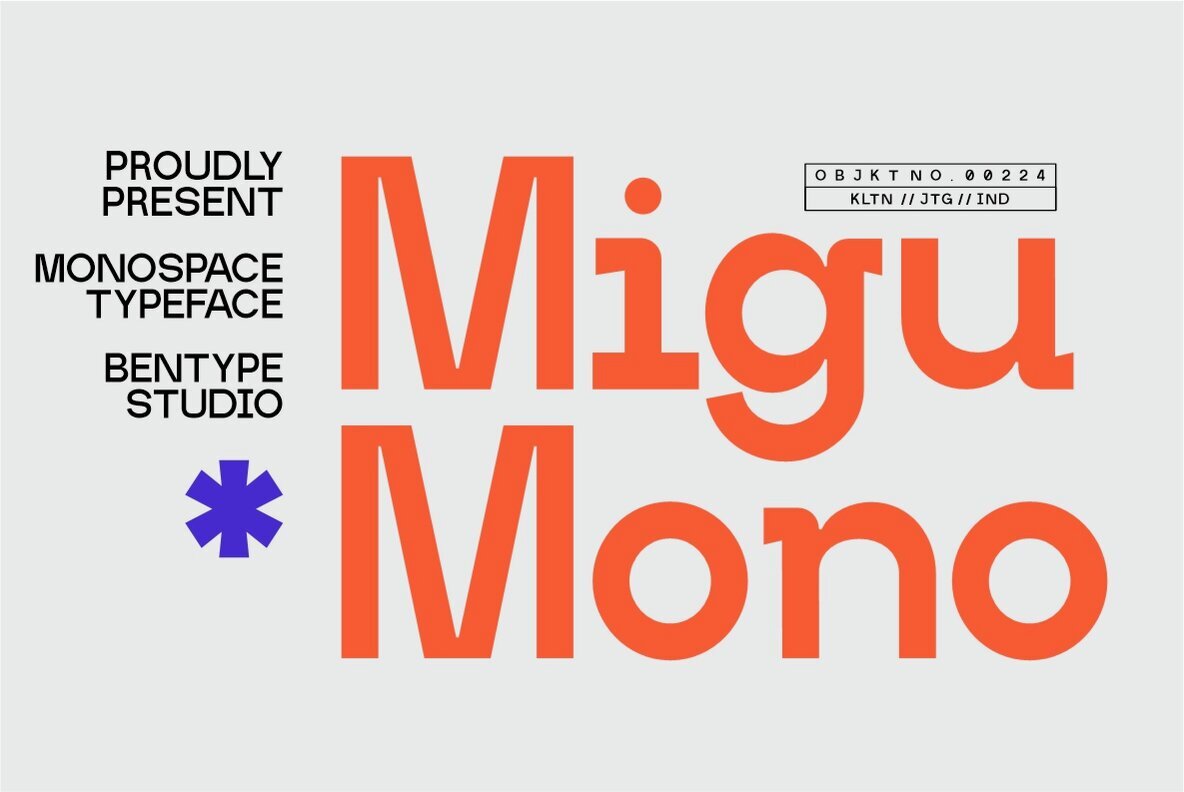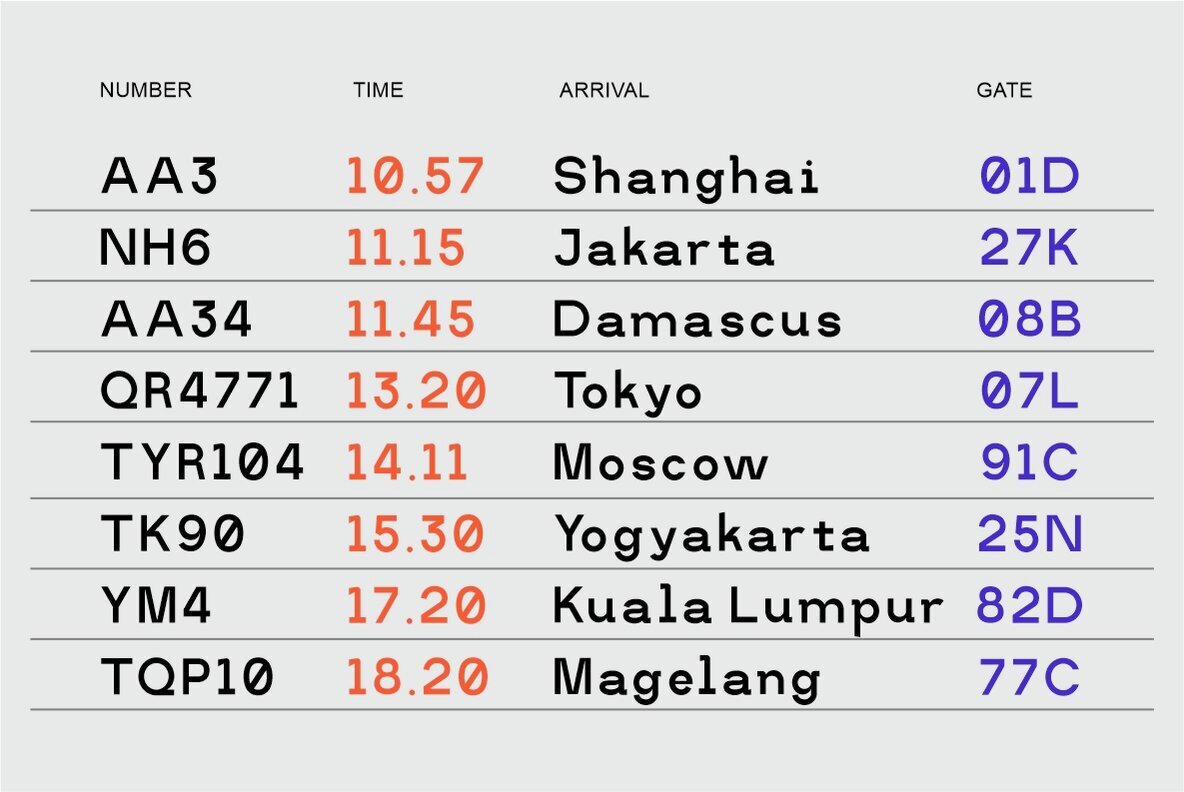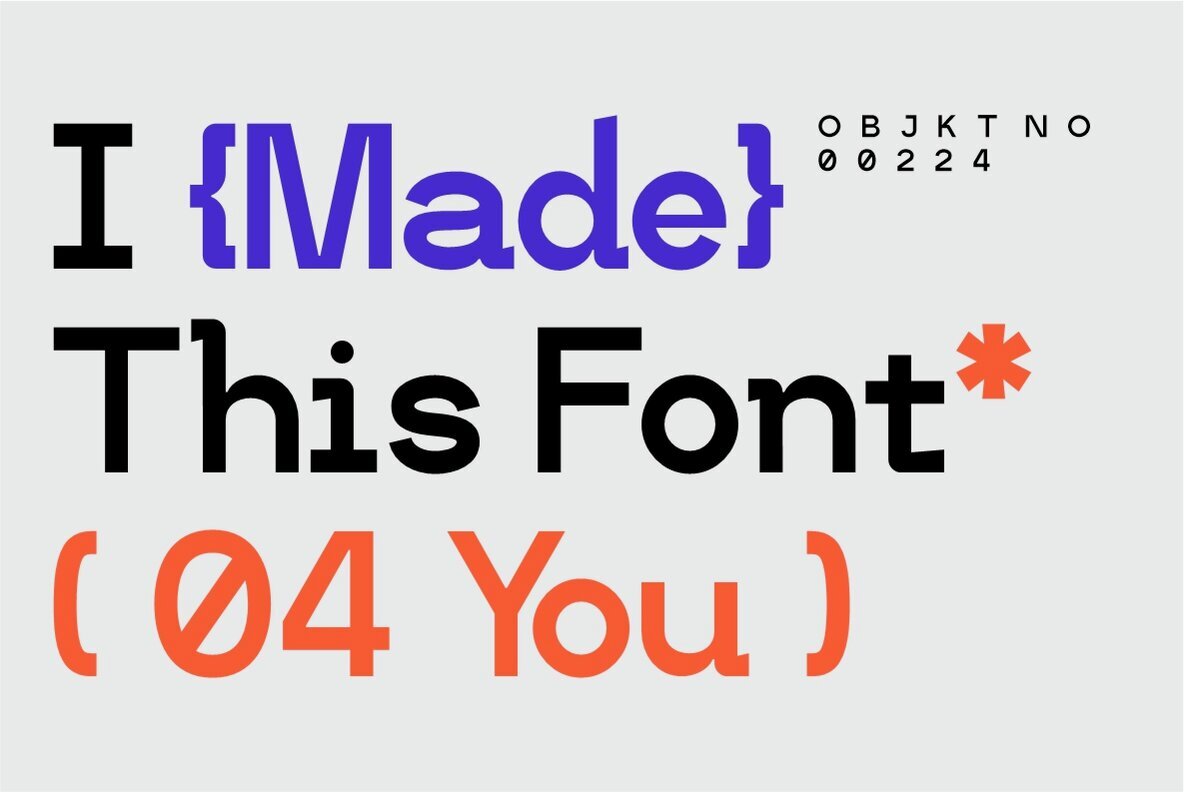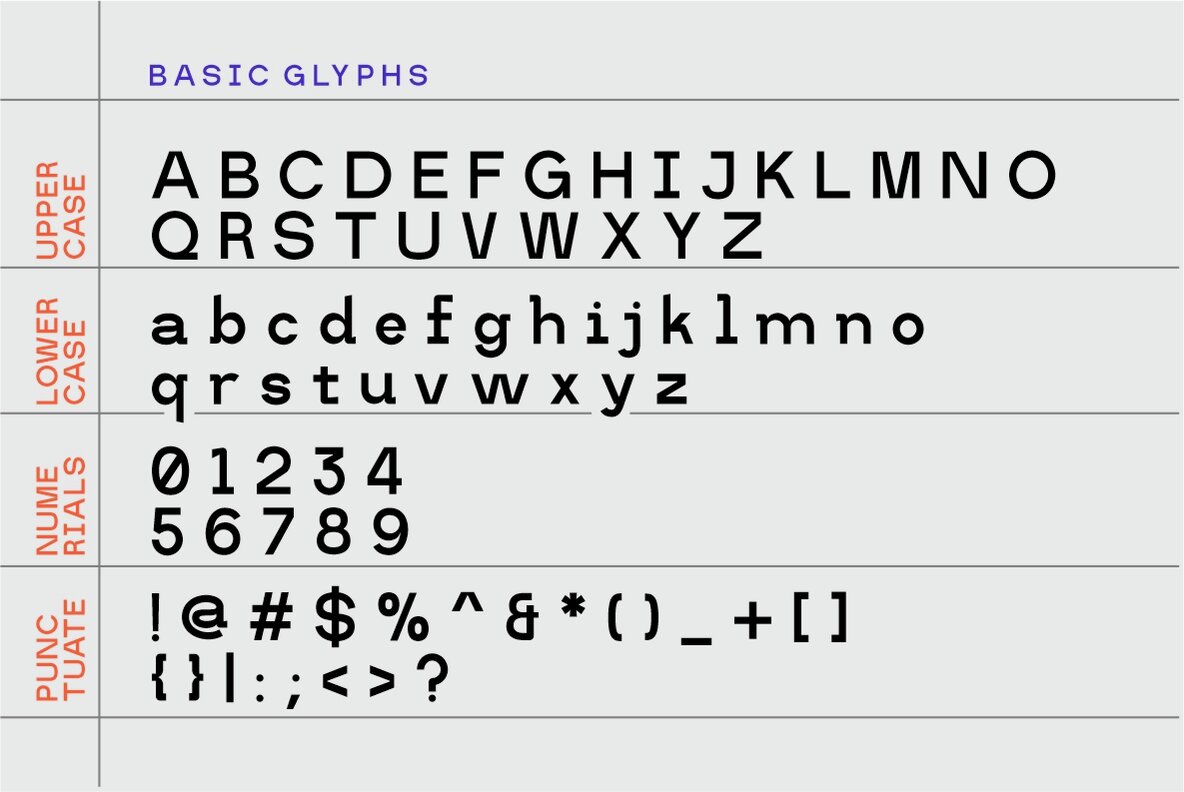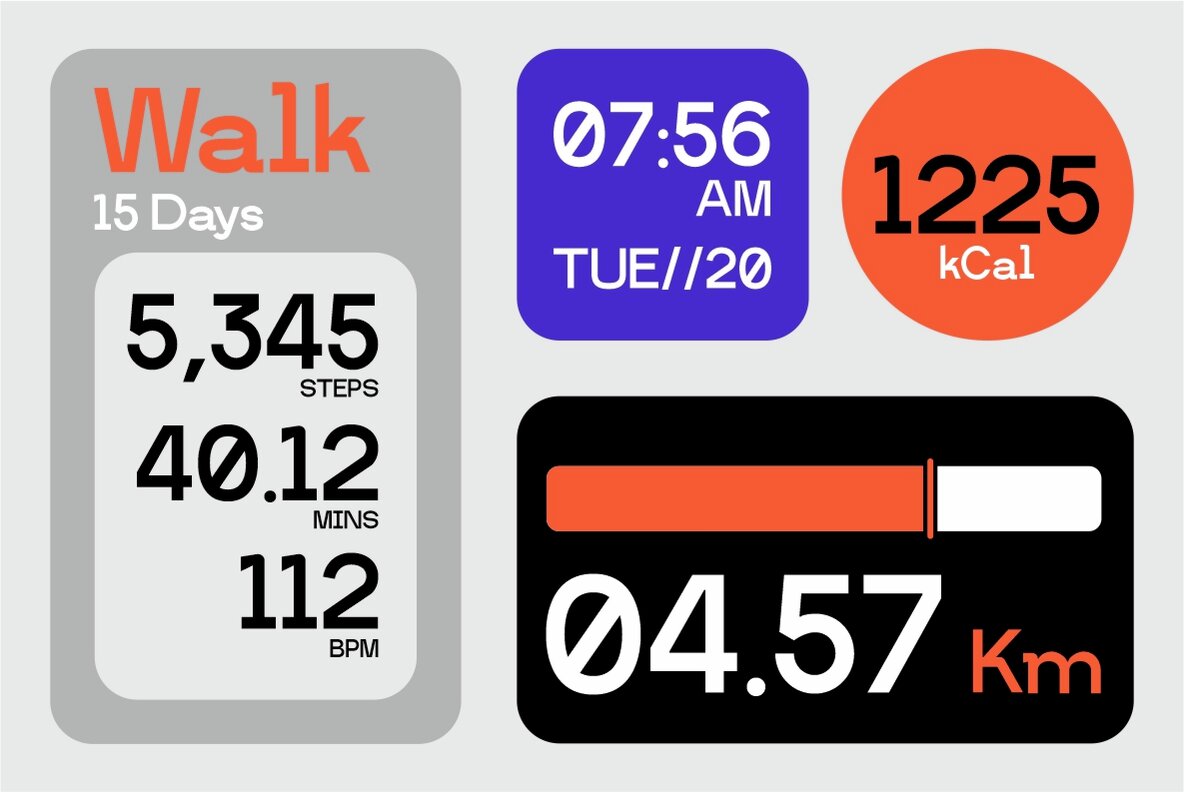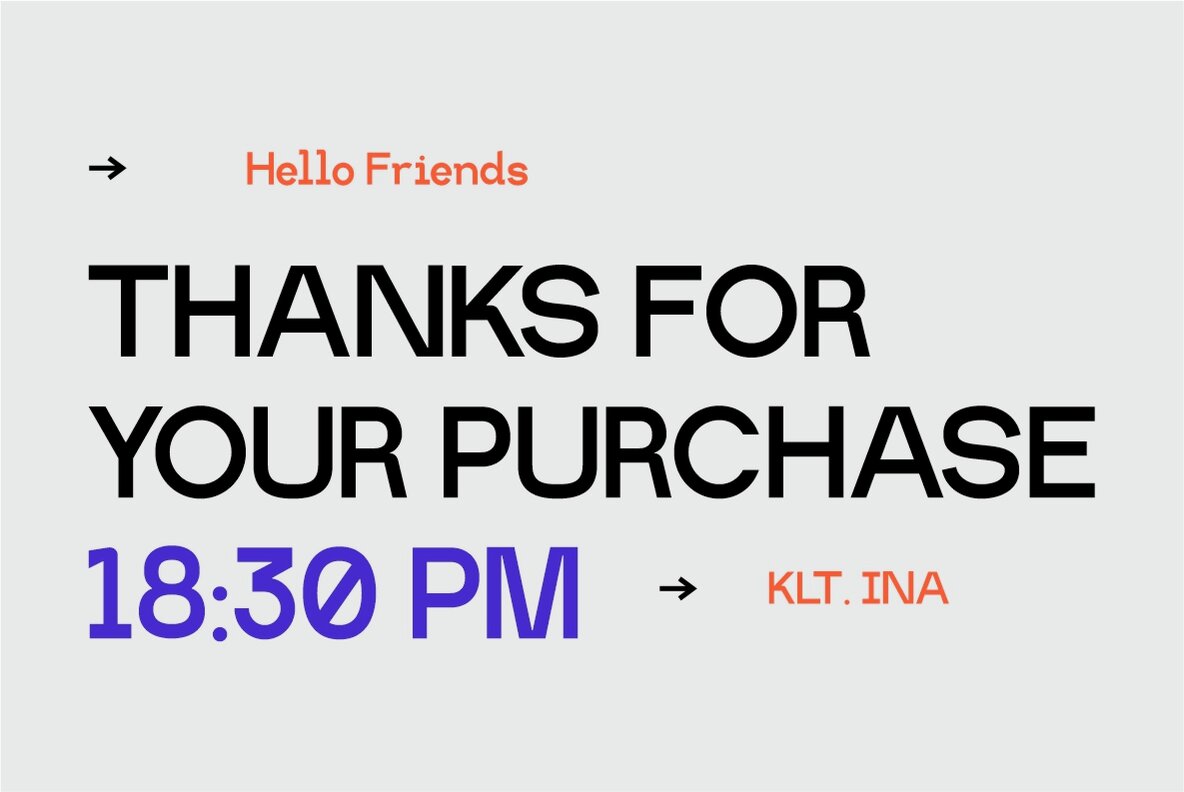
Migumono Font
Migumono
Migu Mono is a Monospace display font, celebrated for its distinct visual appeal that combines a nostalgic charm with modern style. Its unique stems and joins make it ideal for designs that favor pixel aesthetics, bringing your displays, headlines, and banners a condensed yet impactful look.Migu Mono: Nostalgic Monospace Display Font